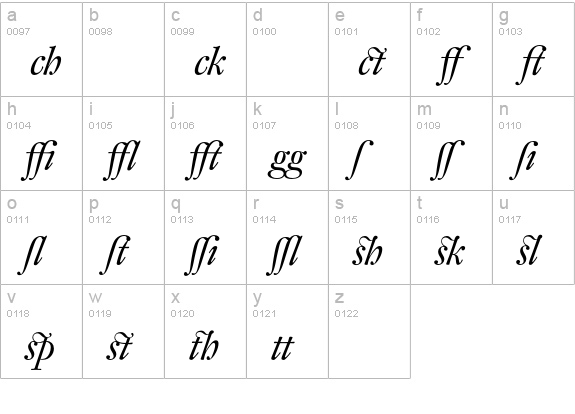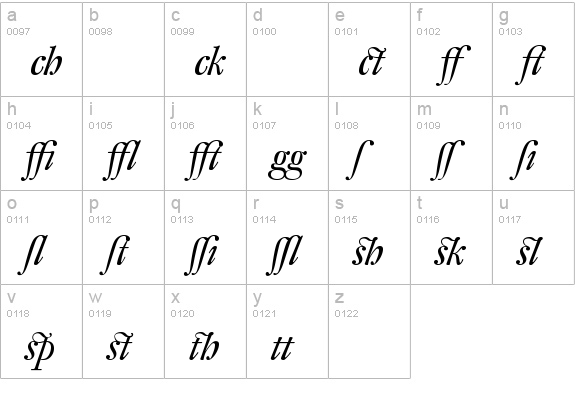
DTLFleischmannDAlternate-Italic Font Details
DTLFleischmannDAlternate-Italic is a distinctive, italic variant in the DTLFleischmannDAlternate typeface family \xE2\x80\x94 well suited to design and typography projects.
DTLFleischmannDAlternate-Italic font is a stylish and elegant typeface that exudes a sense of sophistication and creativity. Its unique design features sleek, slanted letterforms that add a dynamic touch to any project. Whether you're working on a design project, branding materials, or simply looking to add a touch of flair to your text, this font is sure to make a statement. The italicized style of DTLFleischmannDAlternate-Italic font lends a sense of drama and emphasis to your text, making it perfect for titles, headings, and other attention-grabbing elements. Its versatility allows it to be used in a variety of design applications, from print materials to digital projects. Best of all, DTLFleischmannDAlternate-Italic font is available for free download at FontsMarket.com. This means that you can easily access this stylish typeface without any cost, making it a valuable addition to your font collection. Don't miss out on this opportunity to enhance your designs with the sleek and modern appeal of DTLFleischmannDAlternate-Italic font!